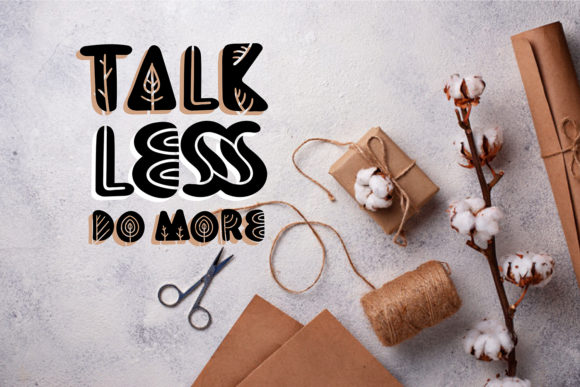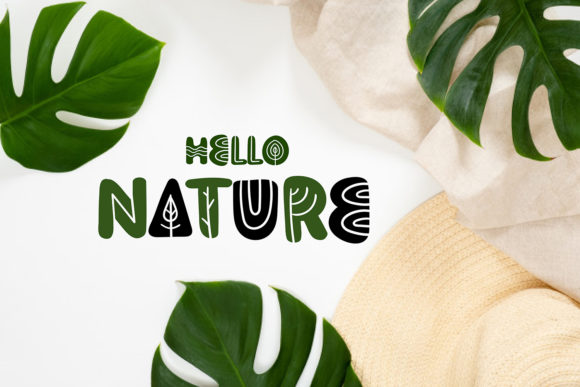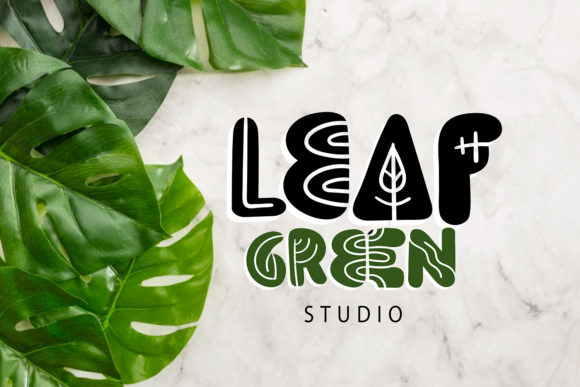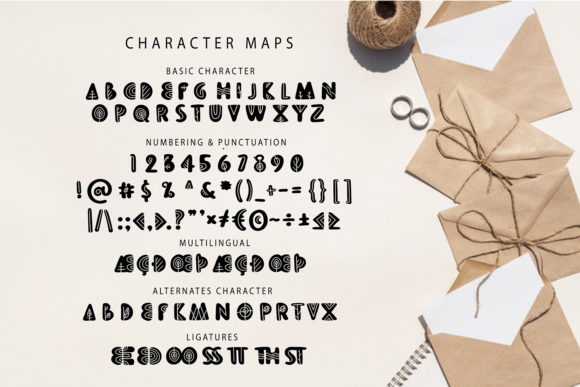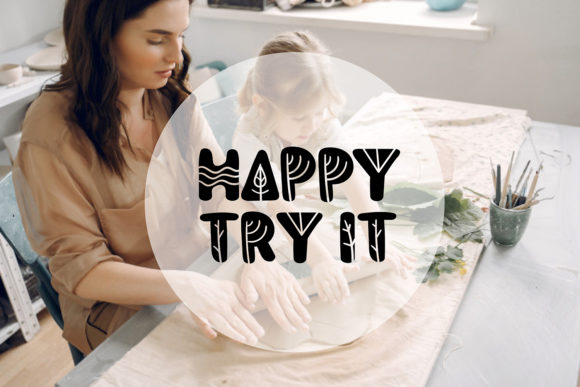
Aleena Groovy Font: Elevate Your Designs with a Unique Touch
Are you tired of using the same old fonts in your designs? Look no further than Aleena Groovy Font, a game-changing decorative font that’s sure to take your projects to the next level. With its one-of-a-kind look, Aleena Groovy is the perfect addition to any designer’s toolkit, whether you’re working on branding, headings, wedding designs, invitations, signatures, logos, labels, or anything in between.
What Makes Aleena Groovy Font So Special?
Aleena Groovy Font boasts a unique and eye-catching design that’s sure to make your projects stand out from the crowd. Its decorative style is perfect for adding a touch of personality and flair to any design, from bold and playful to elegant and sophisticated. Whether you’re looking to create a cohesive brand identity or simply want to add some visual interest to your work, Aleena Groovy Font is the perfect choice.
Endless Design Possibilities with Aleena Groovy Font
One of the best things about Aleena Groovy Font is its versatility. This amazing font can be used in a wide range of design projects, including:
- Branding: Create a lasting impression with a unique and memorable font that reflects your brand’s personality.
- Headings: Add a touch of elegance and sophistication to your headings and titles.
- Wedding Designs: Make your wedding invitations, signs, and decorations truly special with Aleena Groovy Font.
- Invitations: Create custom invitations for any occasion, from birthdays to baby showers.
- Signatures: Add a personal touch to your email signatures or business cards.
- Logos: Create a unique and memorable logo that sets your business apart.
- Labels: Add a touch of personality to your product labels or packaging.
Why Choose Aleena Groovy Font?
So why choose Aleena Groovy Font over other decorative fonts on the market? Here are just a few reasons:
- Unique Design: Aleena Groovy Font boasts a one-of-a-kind design that’s sure to make your projects stand out.
- High-Quality: This font is designed with high-quality and clarity in mind, ensuring that it looks great in any size or application.
- Versatile: This font can be used in a wide range of design projects, from digital to print.
Tips for Using Aleena Groovy Font
To get the most out of Aleena Groovy Font, here are a few tips to keep in mind:
- Experiment with Different Sizes: Aleena Groovy Font looks great in a variety of sizes, from small and delicate to large and bold.
- Pair with Other Fonts: Try pairing Aleena Groovy Font with other fonts to create a unique and interesting contrast.
- Use in Combination with Images: Aleena Groovy Font looks great in combination with images, graphics, and other design elements.
In conclusion, Aleena Groovy Font is a game-changing decorative font that’s sure to elevate your designs to the next level. With its unique look, versatility, and high-quality design, this font is a must-have for any designer or crafter looking to add a touch of personality and flair to their work. Whether you’re working on branding, headings, wedding designs, or anything in between, Aleena Groovy Font is the perfect choice.